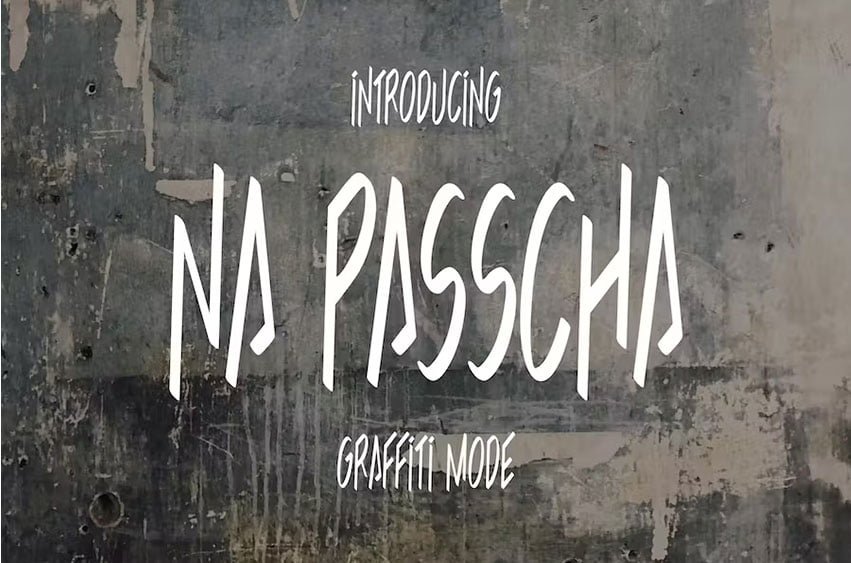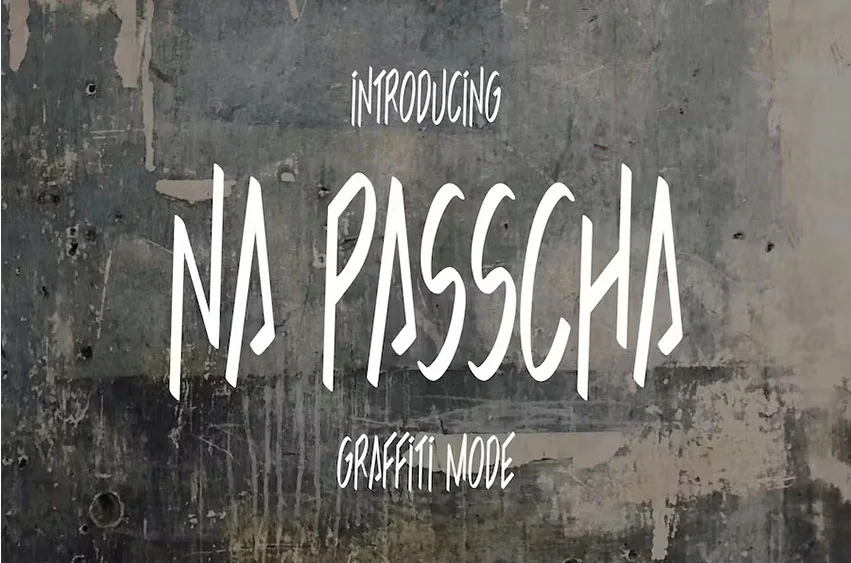
Na Passcha Font is a graffiti fashion font but still legible. you could say it’s basic-graffiti, its function is like a graffiti font in general, but this font is simpler, so when it’s read while riding a vehicle it can still be read clearly. see the glyphs are still well organized. saying “welcome” to a tourist spot is a great choice for this font. Thank You